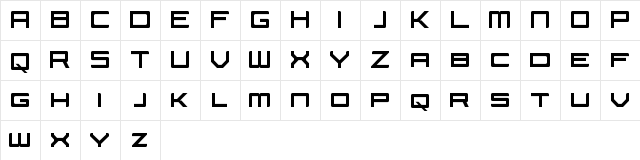
Sectarian Regular
| Designer | Terry Sampson |
Design Context for Sectarian Typeface
Sectarian takes a measured approach to typography — its balanced proportions and neutral character make it a reliable workhorse for both digital and print work.